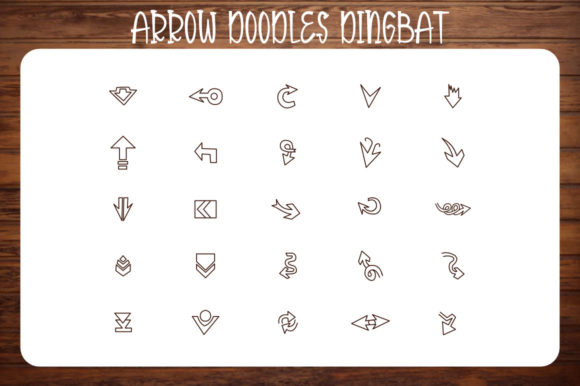
The Perfect Doodle Companion: Arrow Doodles Font
Have you ever found yourself in a creative rut, staring at a blank page or screen, searching for the perfect way to express yourself? That’s where the magic of Arrow Doodles Font comes in – a useful and cool dingbats font that’s about to become your new best friend.
This versatile font is designed to help you bring your ideas to life, whether you’re crafting a handmade card, designing a digital project, or creating a presentation that needs a little extra flair. The Arrow Doodles Font is perfect for adding a touch of whimsy and personality to any design, making it a valuable tool for designers of all levels.
With the Arrow Doodles Font, the possibilities are endless, and we can’t wait to see how you choose to use it. In this article, we’ll dive deeper into the world of Arrow Doodles Font and explore its many uses and benefits.
Arrow Doodles Font Key Features
- Font Family: Arrow Doodles is a unique, hand-drawn font with a playful and whimsical feel.
- Unique Characteristics: Features a range of arrow doodles and icons integrated into the font, providing a creative and engaging visual experience.
Designer Review: Arrow Doodles Font
Overall, I’m quite impressed with the Arrow Doodles Font. It’s a playful and whimsical font that adds a touch of fun to any design. ✨ The hand-drawn style gives it a unique and personal feel, making it perfect for creative projects.
- ✨ Unique and playful design: The font’s hand-drawn style makes it stand out from more traditional fonts.
- ✨ Great for creative projects: The font’s whimsical feel makes it perfect for illustrations, children’s books, and other creative projects.
- ✨ Versatile: The font comes in multiple styles, including uppercase and lowercase letters, making it easy to use in a variety of contexts.
- ⚠️ Limited legibility: The font’s hand-drawn style can make it difficult to read, especially at smaller sizes.
- ⚠️ Not ideal for formal projects: The font’s playful style may not be suitable for more formal or professional projects.
- ⚠️ Limited language support: The font may not include all the characters or languages you need, which can be a limitation in certain design contexts.
Overall, I think the Arrow Doodles Font is a great addition to any designer’s toolkit. While it may have some limitations, its unique design and versatility make it a great choice for creative projects.
Some common use cases for the Arrow Doodles font include:
Creating playful and whimsical designs for children’s products or educational materials.
Adding a touch of nostalgia to retro-themed designs or advertising campaigns.
Using the font to create attention-grabbing headlines or titles for social media graphics or presentations.
Experimenting with different font sizes and colors to create a unique and eye-catching visual effect.